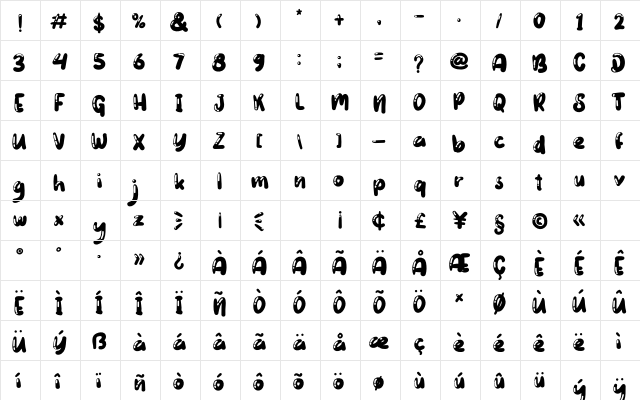
Wadaw Mania Bubble Regular
Design Context for Wadaw Mania Bubble Typeface
Wadaw Mania Bubble has an approachable, lighthearted character — its loose, expressive forms are well-suited to children's content, casual branding, and fun-first design.
Font Pairing: Pairs well with a rounded or humanist sans for body copy, maintaining the friendly tone without relying on Wadaw Mania Bubble to carry extended reading.
Pro Tip: Use Wadaw Mania Bubble at larger display sizes where its expressive character can land. Pair with a clean, simple sans for body copy to maintain readability.